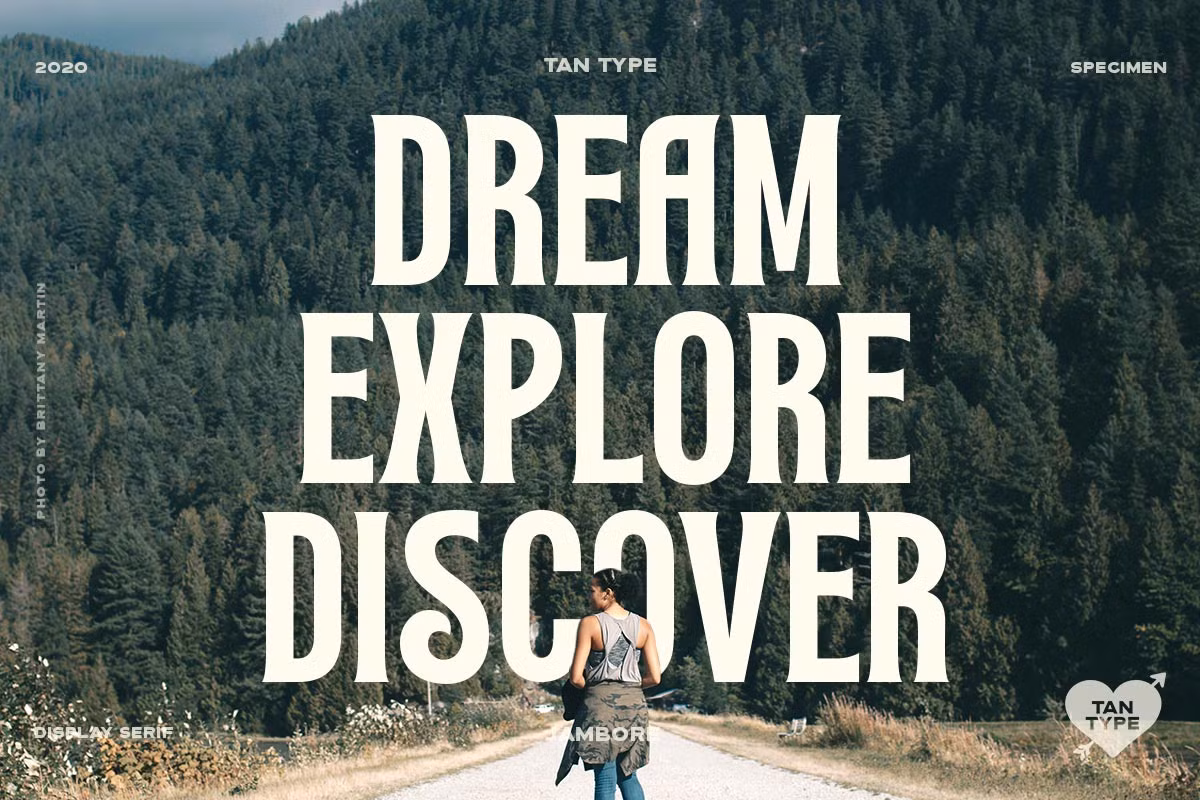
TAN - Jambore
TAN – Jambore: Bold Display Serif Typeface with Retro Vibes
Introducing TAN. Jambore. TAN. Jambore is a bold display serif typeface. TAN. Jambore mixes the design with a feel. TAN. Jambore fits design projects. You can use TAN. Jambore, for the headlines the branding the book covers or the advertisements. I have used TAN. Jambore. I see the difference that TAN. Jambore makes in a design.
Bold serif typeface representation
A representation of the bold serif typeface.
Design Style of Jambore
The design style of Jambore sets Jambore, from typefaces. I notice that Jambore uses strokes and unique serifs. I see that Jambore looks confident and classy. I find that Jambore’s character shapes are balanced. I think Jambore gives a look that catches the eye but does not overwhelm the viewer.
Jambore shows vibes, in Jambores curves and angles. Jambores curves and angles remind the eye of display typefaces from the mid-20th century. The blend of vintage looks makes Jambore suitable for contexts. Jambore works for branding today and, for themes.
Examples of Jambore typography in use
Examples of Jambore typography in use across mediums.
The versatility of Jambore design lets Jambore work well on mediums. The high readability of Jambore makes Jambore grab attention in the print advertisements and the digital formats. I have seen Jambore do this in projects.
Character Sets and Multilingual Support
One of the features of Jambore is the large character set. Jambore includes characters so Jambore works for languages and cultures. With support, for languages you can use Jambore in projects, around the world. The message will reach many people.
I have found that Jambore supports languages. I also like that Jambore includes characters and punctuation and Jambore makes the tool useful, in design situations. Designers can use Jambore to create content that includes everyone and is easy to read.
Character set examples for Jambore
Character set examples showing multilingual support.
Use Cases for Jambore
Jambore is built for the applications. I see use cases where Jambore works well as the typeface:
• Headlines: The bold look of Jambore makes Jambore a good choice, for headlines, in magazines, blogs and websites. Jambore’s design catches the eye. Draws readers in. The design encourages readers to engage with the content.
• Branding: If you are building a brand identity or updating an one Jambore can help you show the brand personality. Jambore’s retro flair adds a touch. The touch can set the brand apart from competitors.
• Book Covers: For authors and publishers Jambore creates visuals, for book covers. Jambore shows the storys core making the cover more appealing, to readers. I have watched Jambore turn an idea into a cover that pulls readers in.
• Advertisements: In the world of advertising catching attention fast matters. Jambore’s bold look makes my ads stand out on media on websites and, in print media. I trust Jambore.
Pairing Suggestions for Jambore
I have seen that typography gets better when you pair typefaces. Pairing typefaces can lift the design a lot. Here are pairing suggestions, for Jambore. The suggestions will match the display of Jambore. Keep the visual harmony:
• Sans-Serif Fonts: Pair Jambore, with sans serif fonts like Helvetica or Open Sans for a look. The contrast, between the serifs and the smooth sans serif lines makes an appealing design.
• Script Fonts: If you want a look pair Jambore, with a script font such as Pacifico or Lobster. The combination adds a touch, to branding projects and invitations. You will see the effect.
• Lightweight Serif Fonts: A lightweight serif font such, as Lora or Playfair Display can be a match for Jambore. Lightweight Serif Fonts and Jambore together create an fresh look in designs. You can keep the design clean and modern, with Lightweight Serif Fonts and Jambore.
In conclusion TAN. Jambore is a display serif typeface that mixes style with retro feel. The design of Jambore is versatile. Makes Jambore perfect, for uses from headlines, to branding. Jambore offers support and user‑friendly licensing. Jambore is not a typeface; Jambore is the tool that can raise design projects. Whether you are a seasoned designer or just starting adding Jambore to your toolkit will help your design work. I have used Jambore and Jambore feels in my projects.